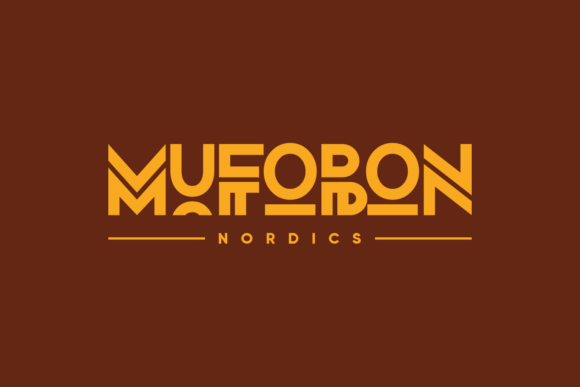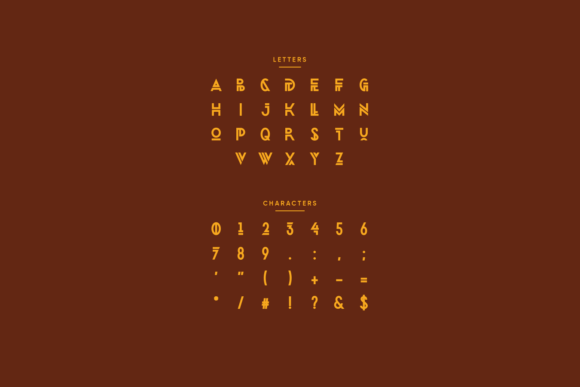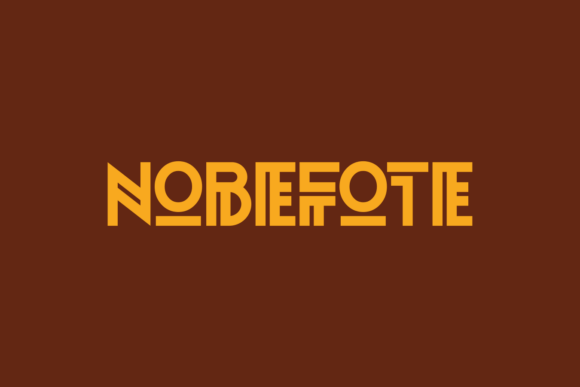
The Magic of Typography: Unveiling the Enchanting Befote Font
Have you ever found yourself lost in a world of creativity, where the lines between reality and fantasy blur? That’s exactly where I was when I stumbled upon the mesmerizing Befote Font. Its unique blend of modern geometric style and mystical undertones left me spellbound, and I knew I had to share it with fellow designers and creatives.
The Befote Font is more than just a typeface – it’s a gateway to a world of limitless possibilities. Suitable for logos, quotes, social media posts, film titles, and stationery, this font is perfect for designers who want to add an extra layer of depth and meaning to their work. With its versatility and unique aesthetic, the Befote Font is an invaluable addition to any designer’s toolkit.
Befote Font Key Features
- Character Set: The font includes a comprehensive set of characters, including Latin, Cyrillic, and Greek alphabets, as well as a wide range of punctuation and symbols.
- Unique Characteristics: Befote Font features a unique, modern design with a subtle flair of elegance, making it an ideal choice for creative and professional applications.
Befote Font Review
I recently had the chance to work with the Befote Font, and I must say, it’s a unique and intriguing choice. ✨ One of the things that stands out is its clean and modern aesthetic, making it perfect for a wide range of design projects.
Here are some of the things that I particularly like about Befote Font:
- ✨ Versatility: The font is incredibly versatile and can be used in a variety of contexts, from headings to body text.
- ✨ Readability: The font is highly legible, even at smaller sizes, making it perfect for digital use.
- ✨ Customization: The font offers a range of customization options, allowing designers to tailor it to their specific needs.
- ⚠️ Limited language support: The font may not support certain languages or character sets, which could be a issue for global design projects.
- ⚠️ Limited stylistic flexibility: While the font is highly customizable, it may not offer the level of stylistic flexibility that some designers are looking for.
Overall, I’d say that Befote Font is a solid choice for designers looking for a clean and modern font. While it may have some limitations, its versatility and readability make it a great option for a wide range of projects.
For best results, use Befote Font in conjunction with other elegant and minimalist design elements to create a cohesive look.
For best results, use Befote Font in headings and titles to create a clear visual hierarchy.
Some common use cases for Befote Font include:
- Business cards and letterhead
- Product packaging and branding
- Editorial and creative writing